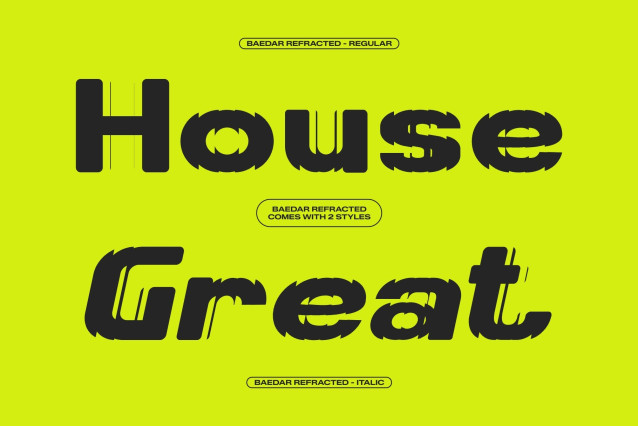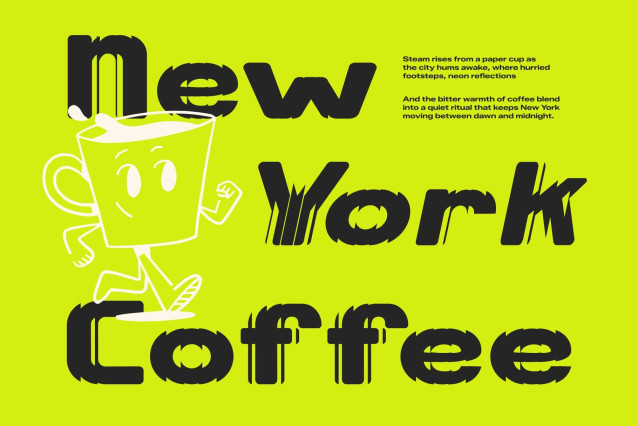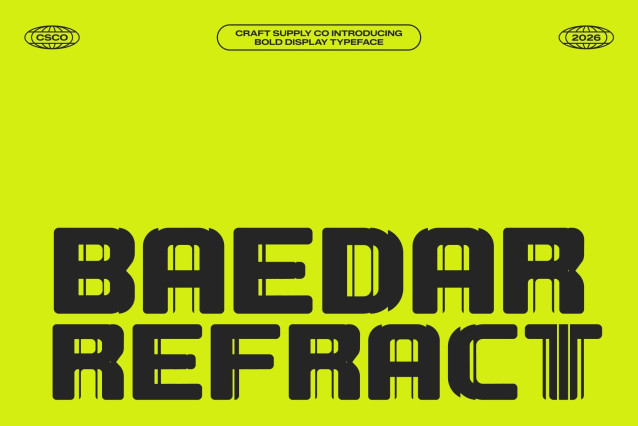
Baedar Refracted – Bold Rounded Sans Serif Font: Where Dynamic Strength Meets Futuristic Refraction
Strong Rounded Forms with Energetic Presence
This is a sans serif font distinguished by its bold rounded shapes and dynamic visual character. Its thick contemporary structure creates a confident and assertive appearance filled with energy, clarity, and modern personality. Every character feels impactful yet approachable, making the font perfect for designs that demand strong attention and vibrant visual presence.
Refracted Effect with Futuristic Fragmentation
This font features glitch-inspired light refraction details that create fragmented cuts, geometric slices, and layered distortions across the letterforms. This futuristic effect introduces movement, digital depth, and experimental energy while preserving the font’s clean and elegant structure. The result is a visually immersive appearance that feels sleek, modern, and technologically inspired.